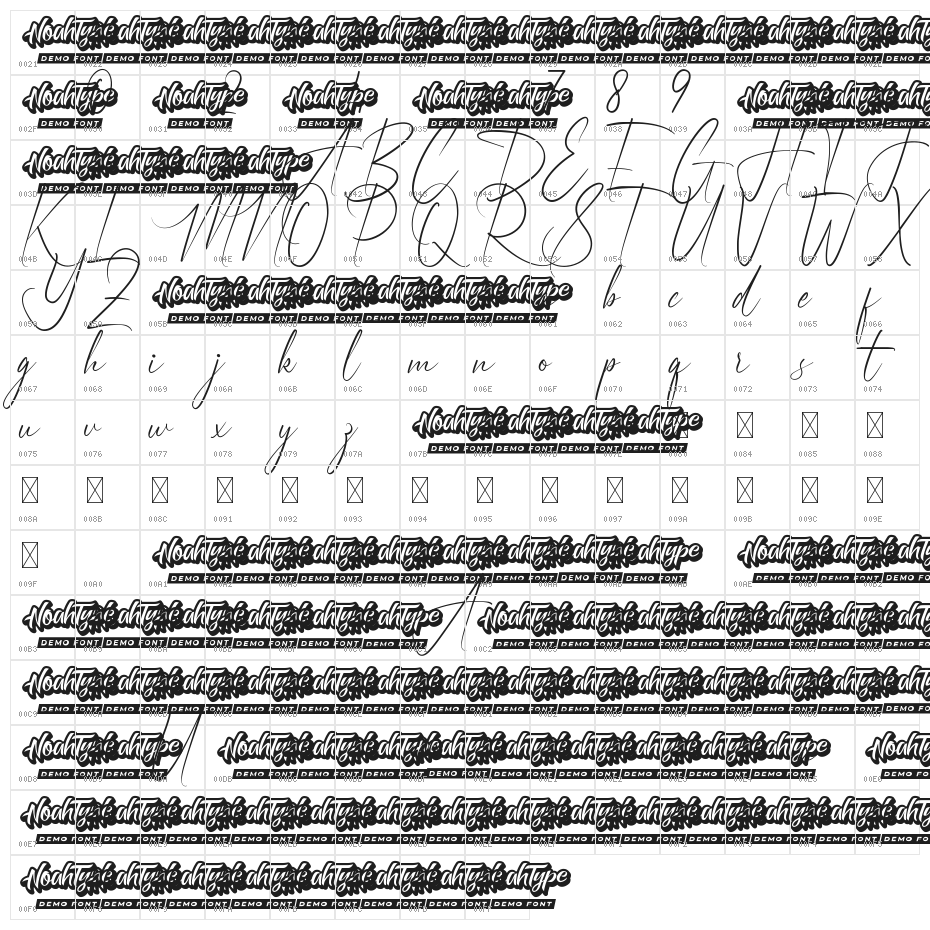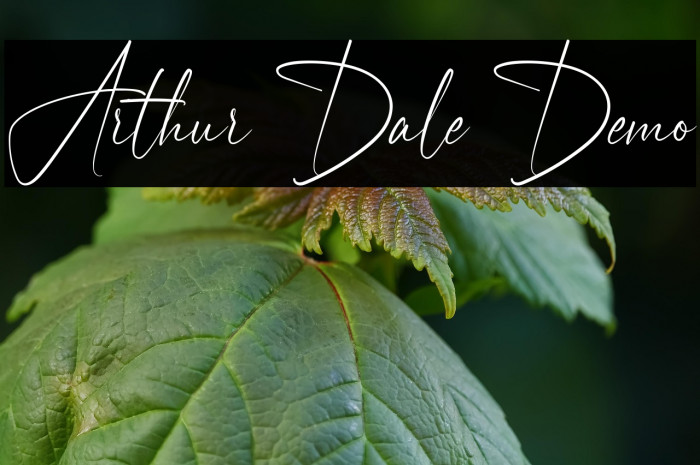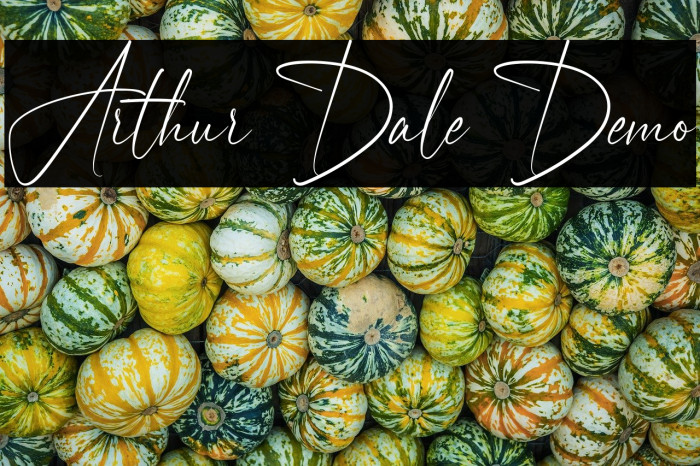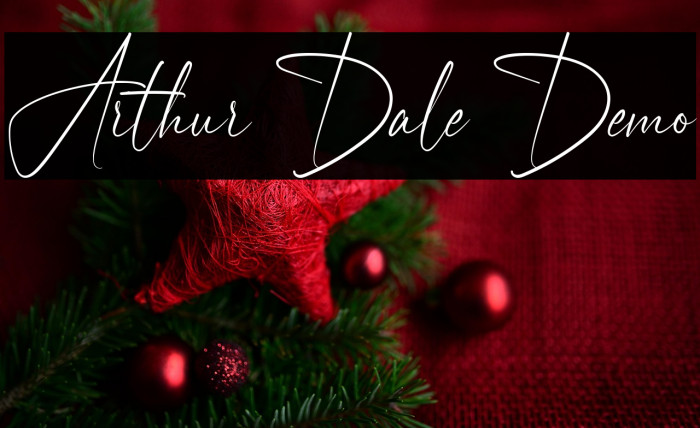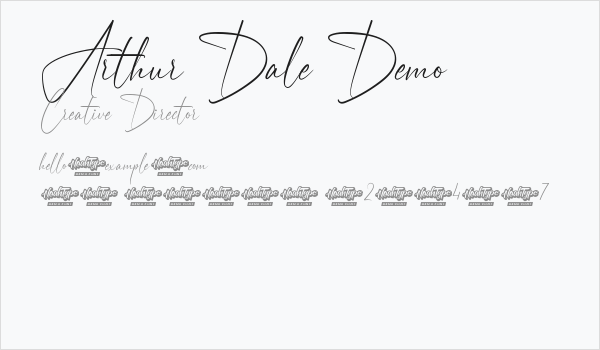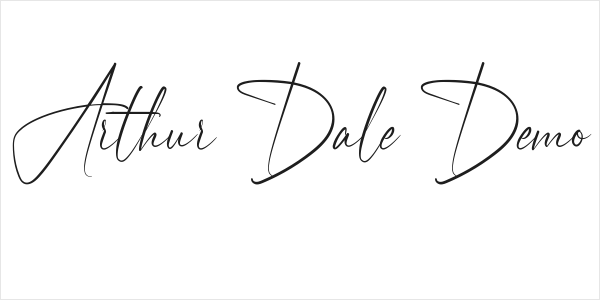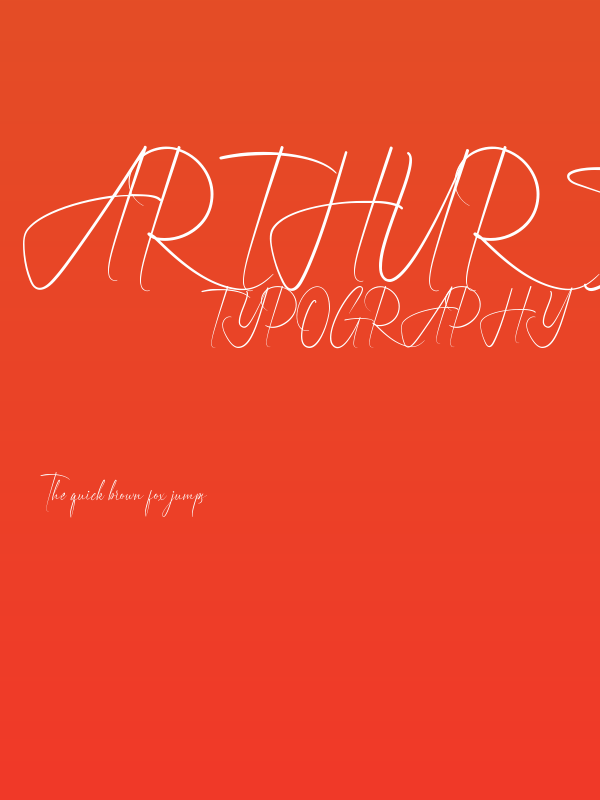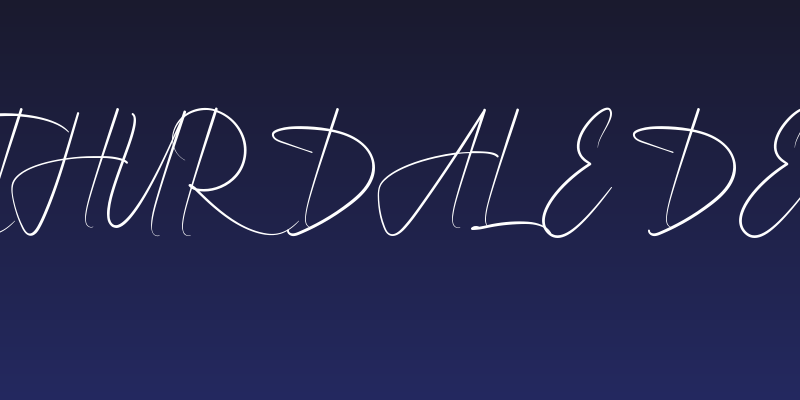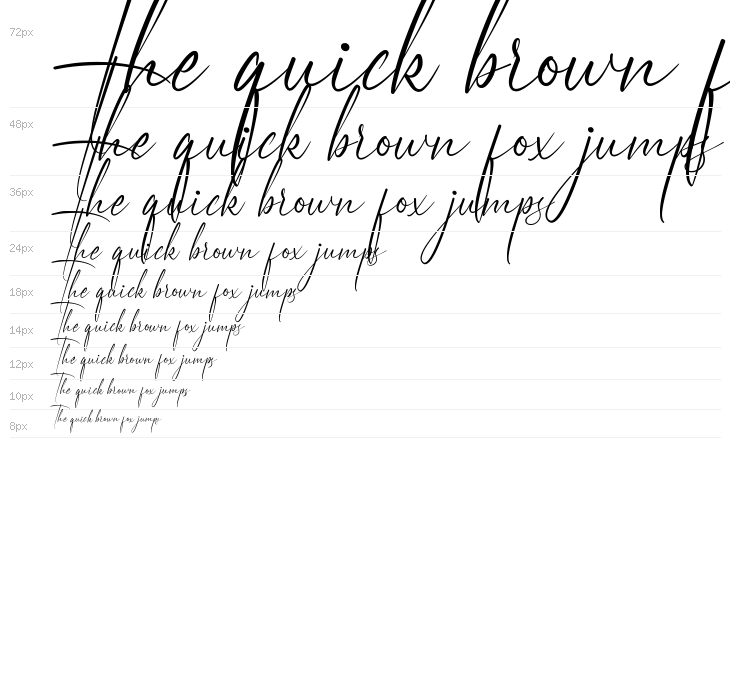
Arthur Dale Demo Font
Arthur Dale Demo Description
This font features an elegant and flowing script style, characterized by its smooth, cursive strokes and graceful curves. The uppercase letters are tall and slender, with a slight slant that adds a sense of motion and fluidity. The lowercase letters maintain a consistent style, with elongated ascenders and descenders that enhance the font's sophisticated appearance. The numbers are designed to match the overall aesthetic, with a similar cursive flair. This font is ideal for projects that require a touch of elegance and sophistication, such as wedding invitations, branding, and high-end product packaging.
| Overall Style | Elegant, Sophisticated |
| Proposed Projects | Wedding invitations, branding, high-end product packaging, elegant signage. |